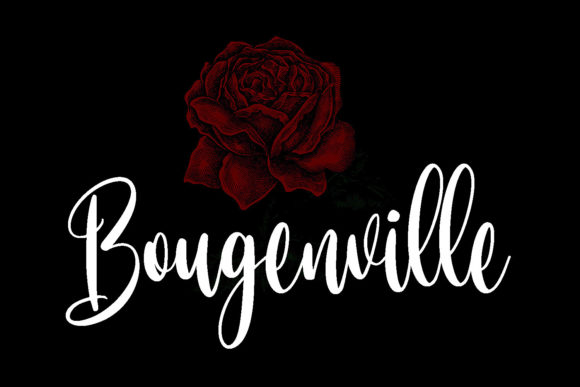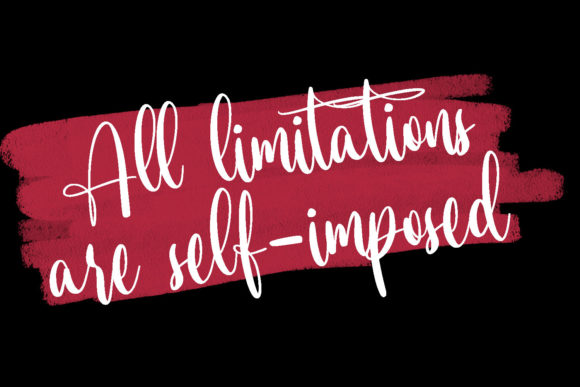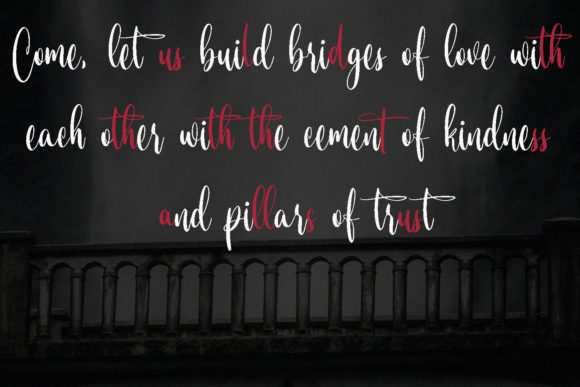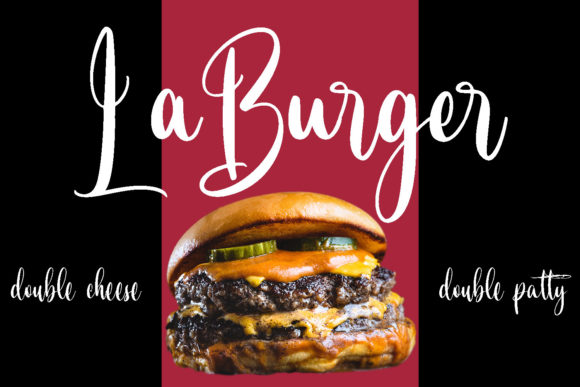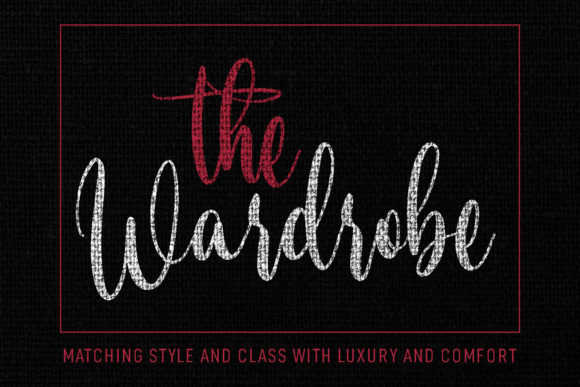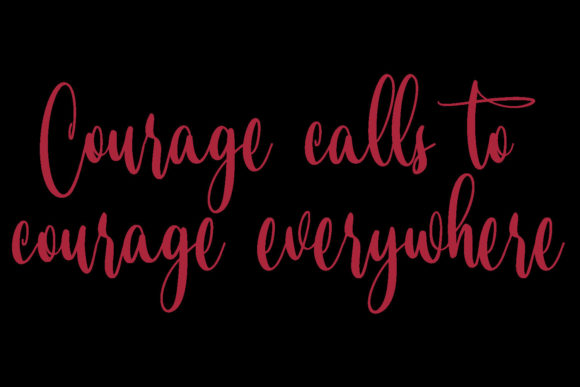
Cerotypes Font: Elevate Your Designs with Delicate Elegance
In the world of typography, fonts play a crucial role in conveying the tone and personality of a brand. For designers and crafters seeking a script font that exudes delicacy and fashion, Cerotypes is an exceptional choice. This beautiful font is perfect for a wide range of branding projects, including logos, t-shirt printing, creative products, and more. In this article, we’ll explore the features and benefits of Cerotypes, and how it can elevate your designs to new heights.
What is Cerotypes Font?
Cerotypes is a delicate and fashionable script font, carefully crafted to add a touch of elegance to any design. Its intricate strokes and flowing curves create a sense of movement and sophistication, making it ideal for projects that require a high level of refinement. Whether you’re working on a logo, brochure, or social media graphics, Cerotypes is sure to impress.
Key Features of Cerotypes Font
- Delicate and Fashionable: Cerotypes boasts a slender and refined design, perfect for creating a sense of luxury and sophistication.
- Script Font: The flowing curves and connected letters of Cerotypes create a beautiful, handwritten feel that’s perfect for adding a personal touch to your designs.
- Versatile: Cerotypes is suitable for a wide range of applications, from logos and branding materials to t-shirt printing, creative products, and more.
- Easy to Read: Despite its delicate nature, Cerotypes remains highly legible, making it perfect for use in body text or headlines.
Benefits of Using Cerotypes Font
So, why choose Cerotypes for your next design project? Here are just a few benefits of using this beautiful font:
- Adds Elegance: Cerotypes brings a level of sophistication and refinement to your designs, helping to elevate your brand’s image.
- Unique and Memorable: The distinctive look of Cerotypes ensures that your designs will stand out from the crowd, making them more memorable and engaging.
- Time-Saving: With Cerotypes, you can create professional-looking designs quickly and easily, without sacrificing style or quality.
- Customizable: Cerotypes can be easily customized to fit your brand’s specific needs, allowing you to tailor the font to your unique style.
How to Use Cerotypes Font in Your Designs
Using Cerotypes in your designs is easy. Here are a few tips to get you started:
- Pair with Bold Fonts: Combine Cerotypes with bold, sans-serif fonts for a striking contrast that adds visual interest.
- Experiment with Colors: Cerotypes looks stunning in a range of colors, from soft pastels to rich jewel tones. Don’t be afraid to experiment and find the perfect hue for your design.
- Use for Headlines and Titles: Cerotypes is perfect for use in headlines and titles, where its elegant curves and flowing strokes can add a touch of drama and flair.